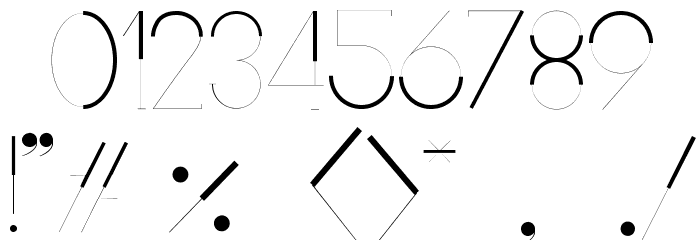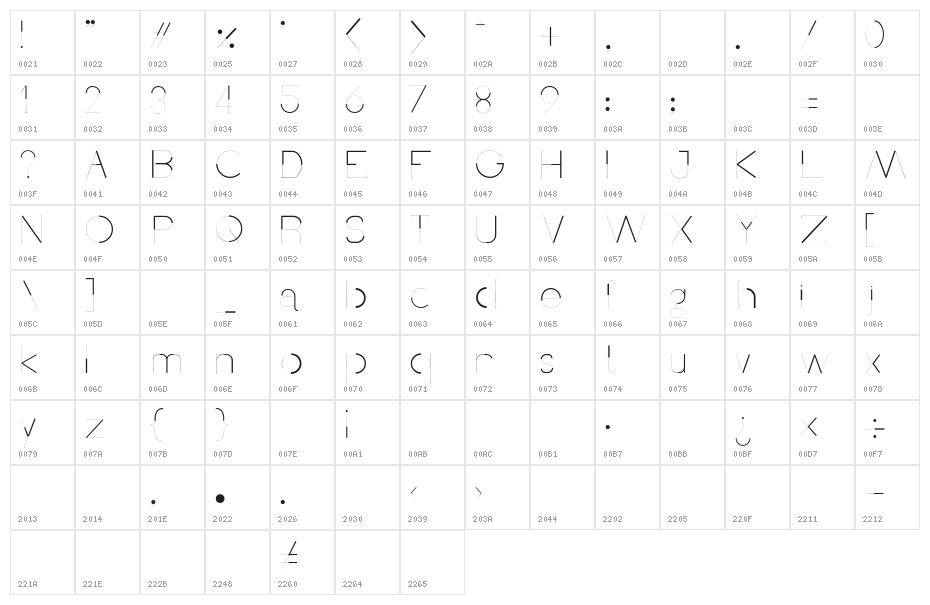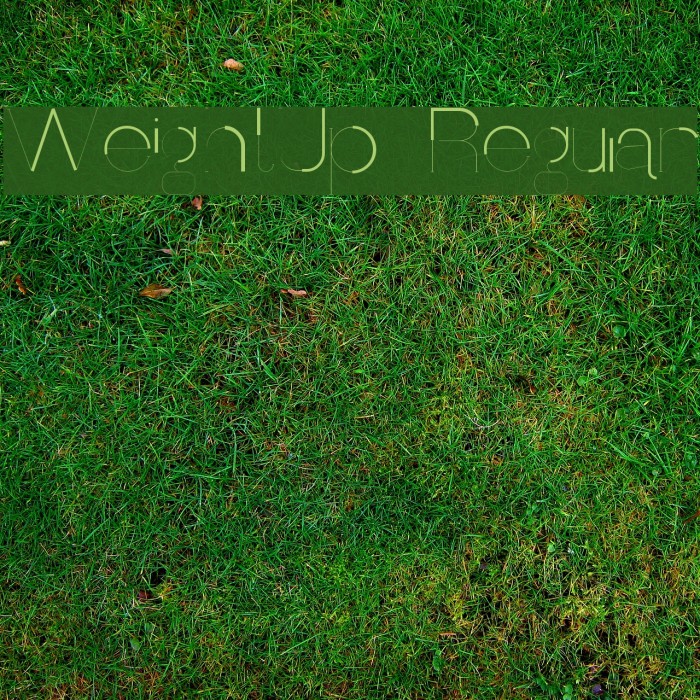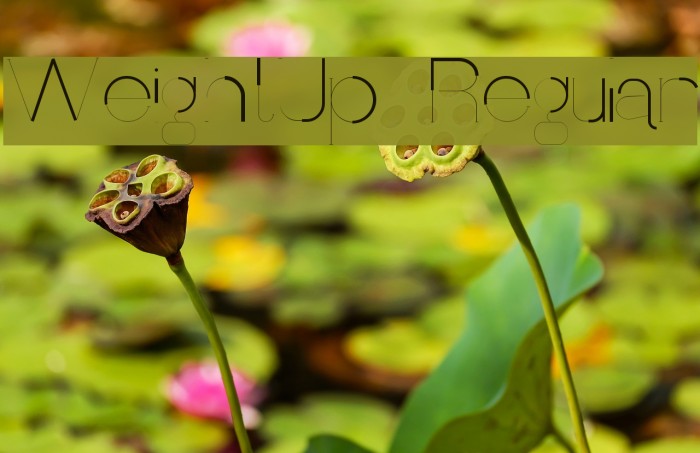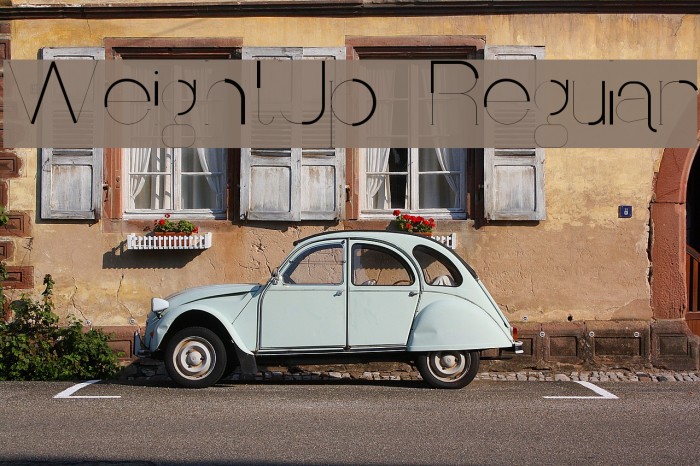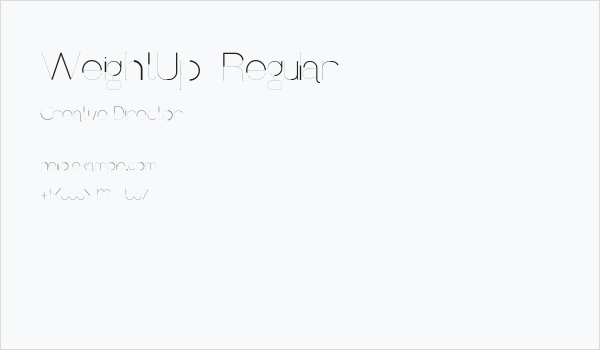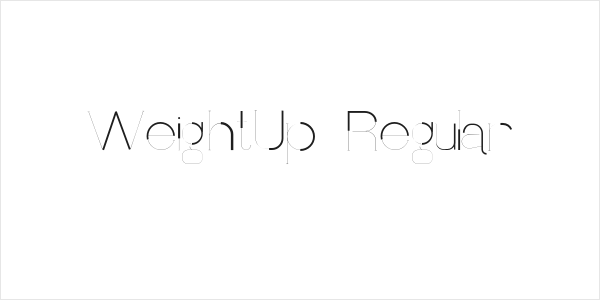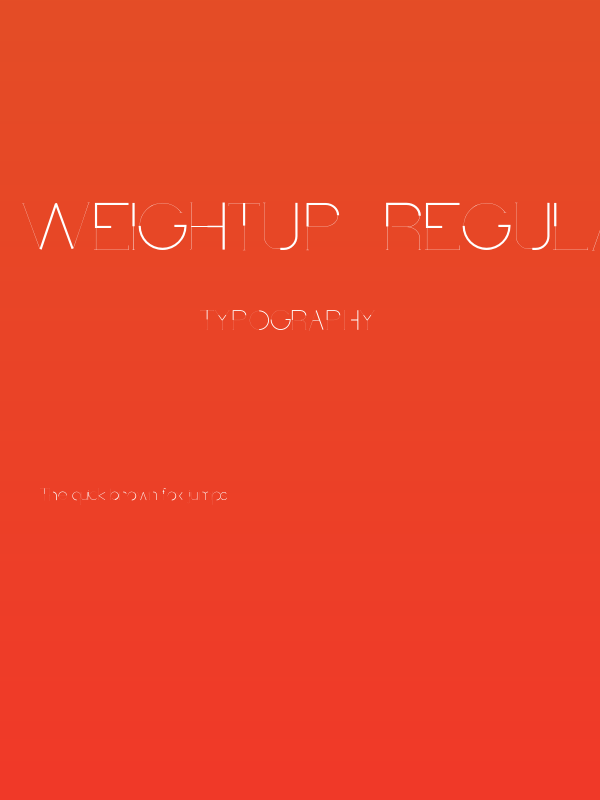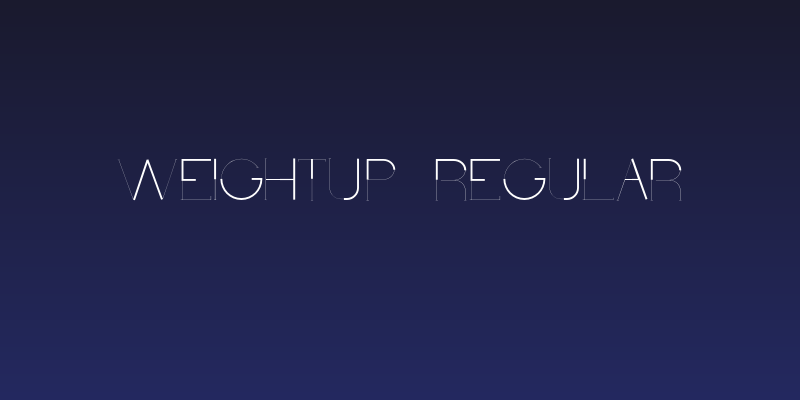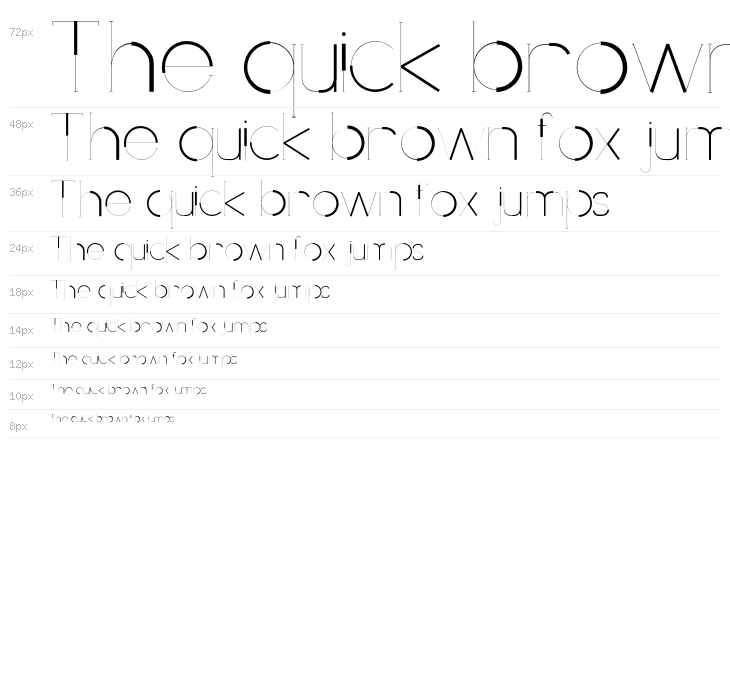
WeightUp-Regular Font
WeightUp-Regular Description
This font features a unique blend of geometric and minimalist design elements. The characters are constructed with a mix of thick and thin strokes, creating a dynamic and modern appearance. The uppercase letters are bold and striking, while the lowercase letters maintain a consistent and clean look. The numerals are designed with a similar aesthetic, ensuring uniformity across all characters. The special characters are crafted with precision, adding to the overall sleek and contemporary style of the font.
| Proposed Projects | Ideal for branding, advertising, and editorial design projects that require a modern and sophisticated touch. |